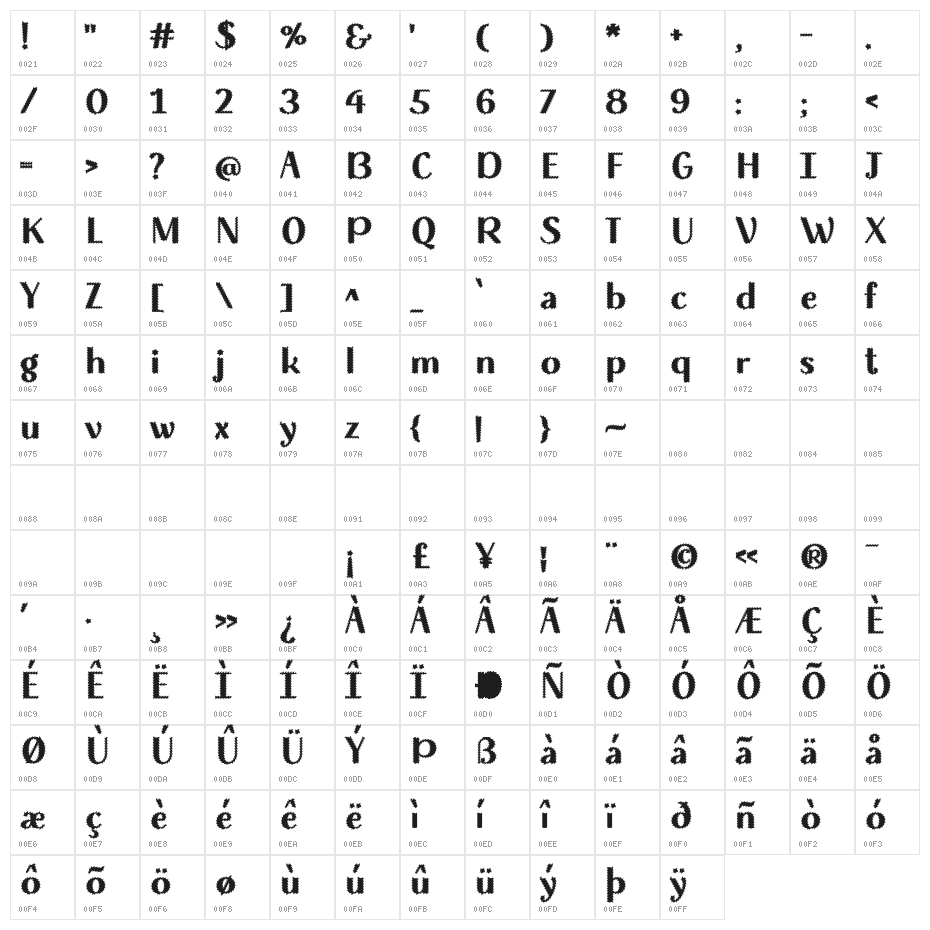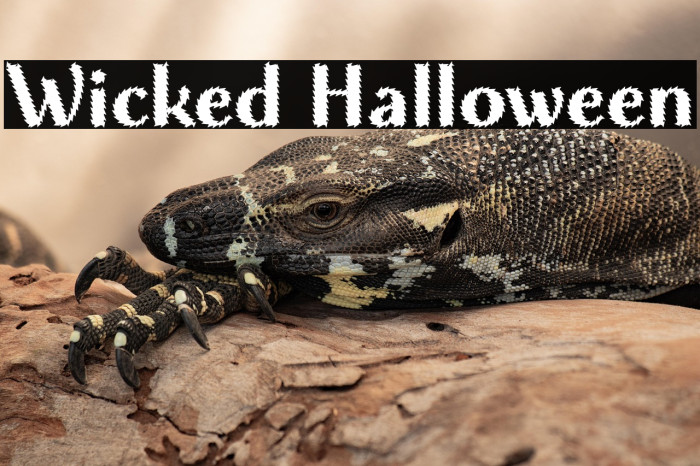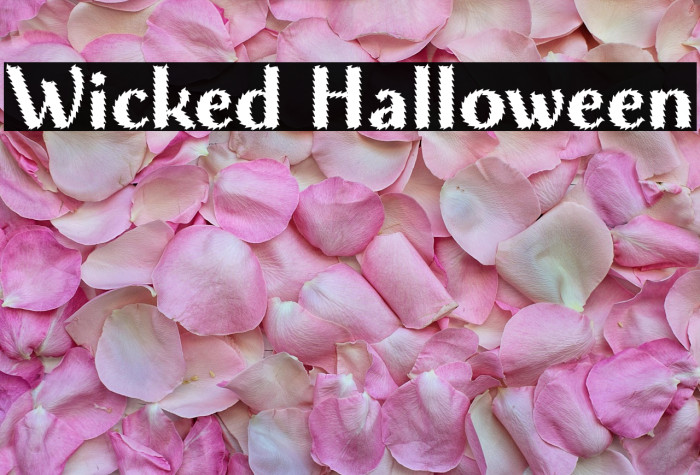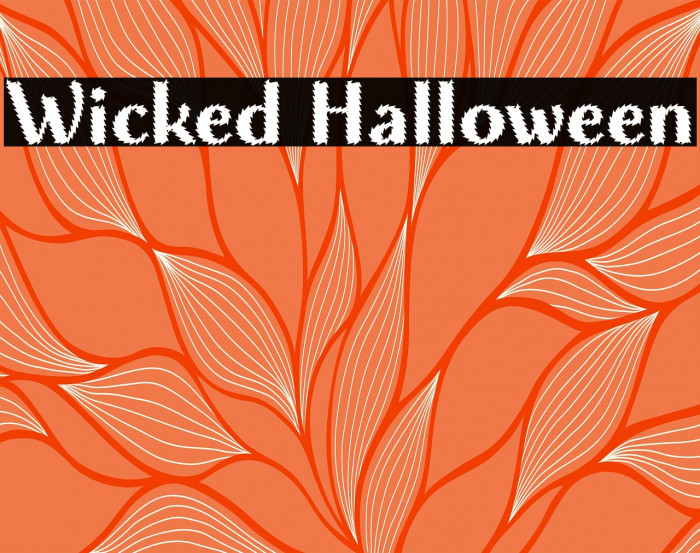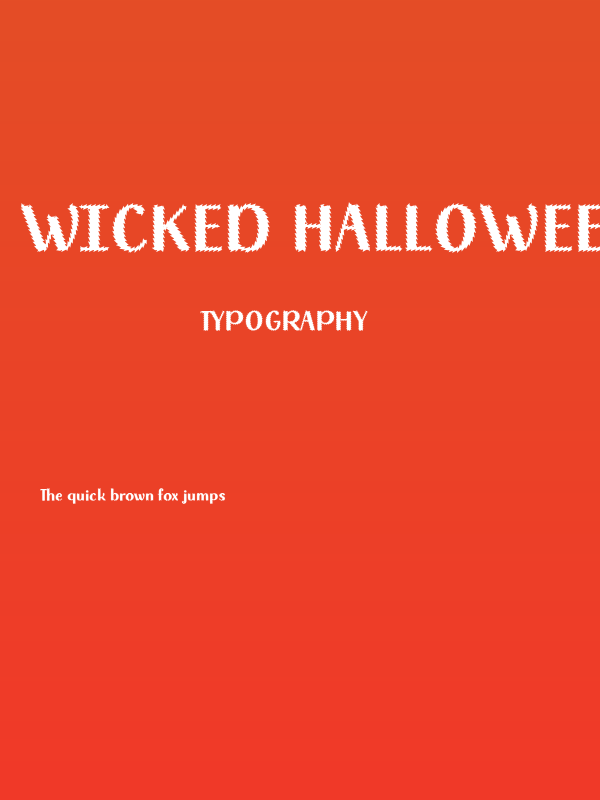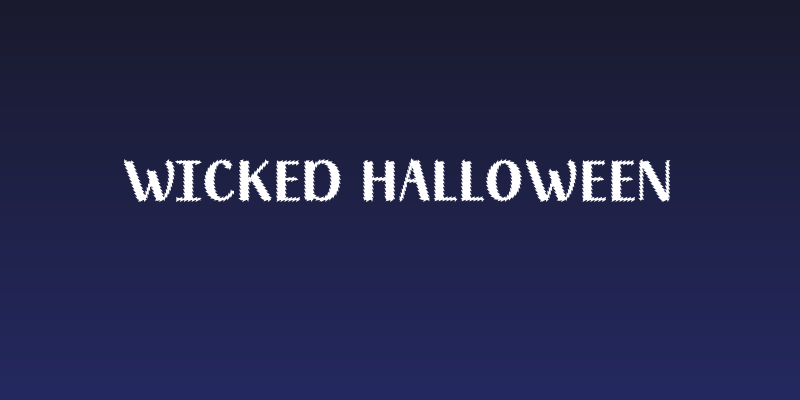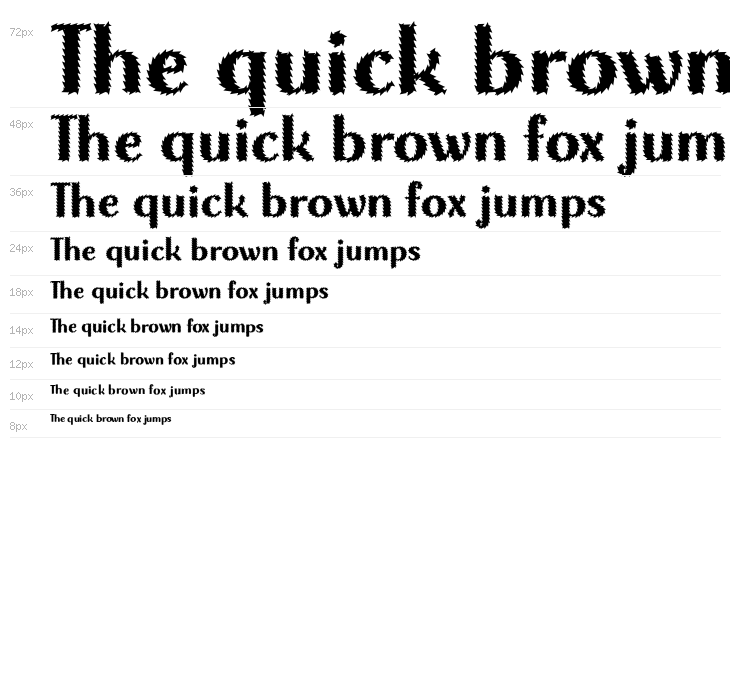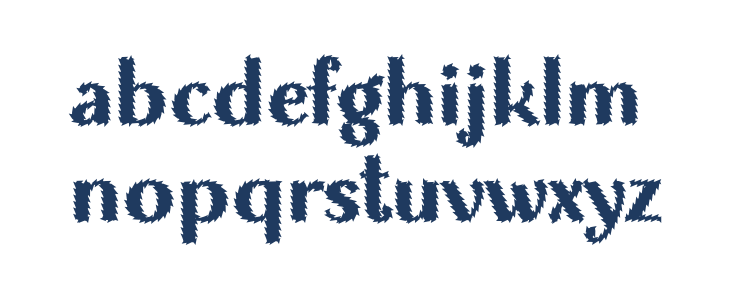
Wicked Halloween Font
Wicked Halloween Description
This font features jagged, thorn-like edges that give it a distinctly eerie and unsettling appearance, perfect for Halloween-themed designs. The characters are bold and have a high contrast between the thick and thin strokes, enhancing their dramatic and eye-catching effect. The uppercase and lowercase letters maintain a consistent style, with sharp, pointed edges that mimic the look of torn paper or jagged teeth. Numbers and special characters follow the same design principles, ensuring a cohesive look across all text elements. The font's unique style makes it ideal for creating a spooky atmosphere in any project.